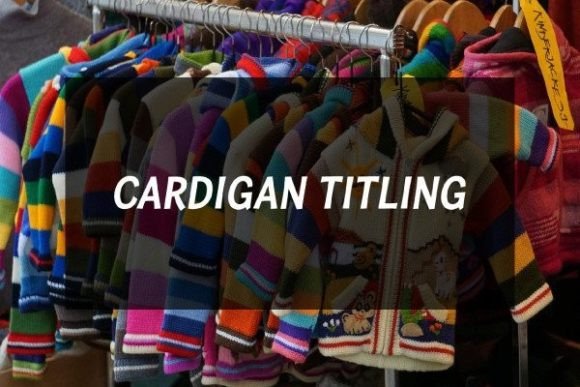
Cardigan Titling, Clean Serif Font for Packaging & Logos
Cardigan Titling is a bold, display‑ready font featuring uppercase letterforms with a clean yet slightly casual character. Its design offers a balance between readability and style, making it suitable for attention‑grabbing titles, logos, branding, banners, and print or digital graphics.
- Logos, wordmarks, and brand identity designs with strong typography
- Posters, banners, flyers, signage — ideal for headings and display text
- Merchandise & POD items — apparel, mugs, tote bags, stickers, packaging labels
- Social‑media graphics, ads, headers, marketing visuals needing bold text
- Cut‑file/minimalist craft projects — vinyl decals, paper‑cut signage, packaging mockups, creative labels
- Bold, all‑caps style — great for titles, signage, and high‑impact designs
- Clear and legible letterforms, even at large sizes — perfect for posters, mugs, and merchandise
- Versatile — works across print, digital, packaging, merchandise, and craft‑based projects
| Feature | Cardigan Titling | Generic Sans‑Serif Font A | Generic Display Font B |
| Case / Style | All‑caps display | Mixed case, variable use | Mixed — may lack design consistency at large sizes |
| Best For | Posters, signage, logos, merch, headlines | Body text, general layouts, minimal design | Decorative headings, but less consistency |
| Impact & Readability (Large Size) | High — bold uppercase letters stay sharp and visible | Medium — may lose presence in large‑format display | Mixed — depends on font design and spacing |
| Versatility | High for display‑focused design, branding, merch, crafts | High for body copy, minimal design, general use | Medium — best for decorative or occasional display use |